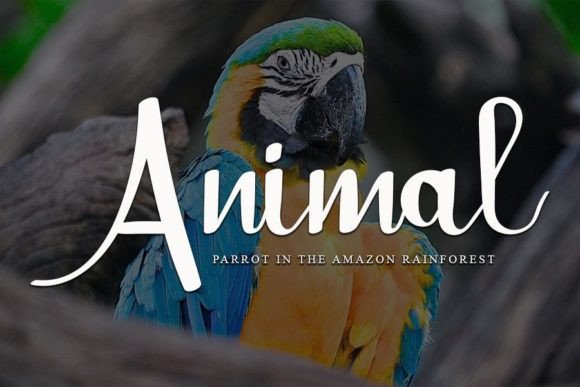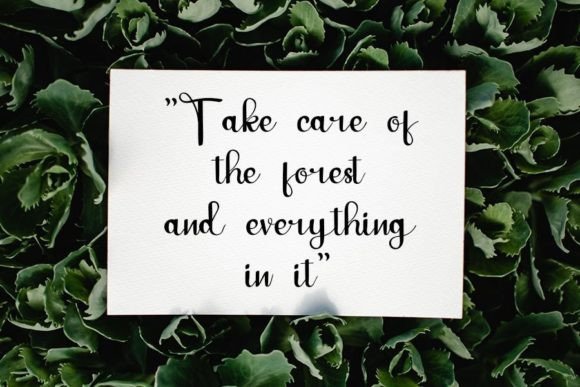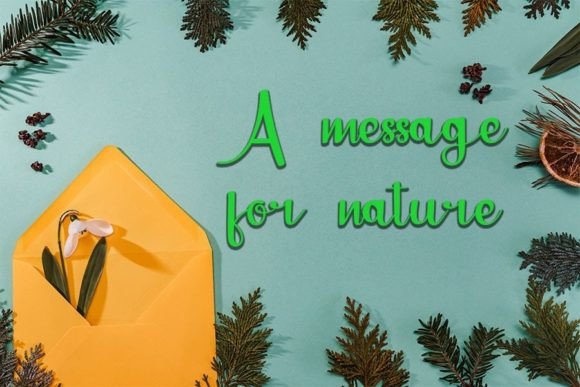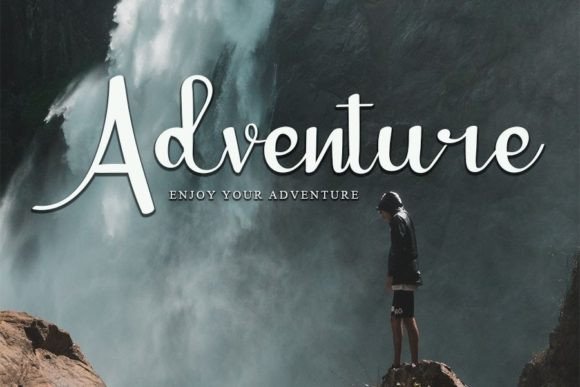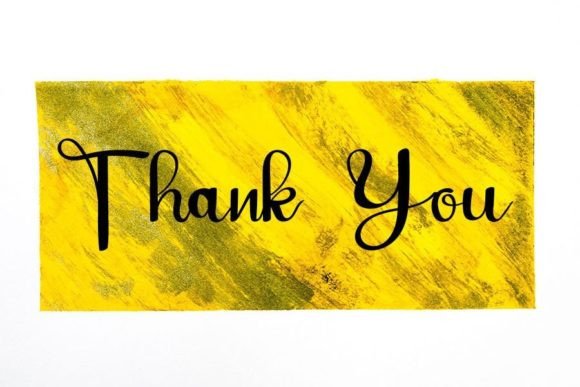
Discover the Perfect Blend of Classic and Modern: Amazon Font
Do you remember that moment when a font choice made all the difference in your design project? Perhaps it was a wedding invitation, a business logo, or a children’s book cover. The right font can elevate your work and make it truly special. That’s exactly what Amazon Font aims to do – add a touch of elegance and personality to your creative projects.
As a friendly handwritten font, Amazon Font carefully balances classic calligraphic influences with a fresh, contemporary feel. This unique blend makes it an excellent choice for designers who want to stand out from the crowd. Whether you’re working on a branding project, a poster, or a digital magazine, Amazon Font is sure to impress.
- Unique Characteristics: Amazon Font features a clean, modern design with subtle nuances that make it highly readable, even at small font sizes.
- Font Weight: Amazon Font is available in light, regular, and bold weights, allowing for emphasis and hierarchy in typography.
Amazon Font Review
As a designer, I’ve had the chance to work with Amazon Font, and I’ve got some mixed thoughts about it. Here’s my honest review.
- High-quality rendering on both desktop and mobile devices
- Wide range of languages supported, making it a great choice for global brands
- Comes with a decent set of fonts, including sans-serif and serif options
- Easy to integrate into existing projects, thanks to its web font format
- Limited customization options, which can make it difficult to achieve a unique look
- No bold or italic weights available for all font families
- Can be quite heavy, which may impact page load times
- Not as extensive a font library as some other popular font providers
Overall, Amazon Font is a solid choice for projects that require a reliable, high-quality font solution. However, it may not be the best option for designers who need a lot of customization flexibility or a vast font library. With a bit of creativity and planning, Amazon Font can be a great addition to your design toolkit.
Amazon Font is a versatile font that can be used for various purposes, including branding, advertising, and product packaging. Tips for getting the most out of it include: